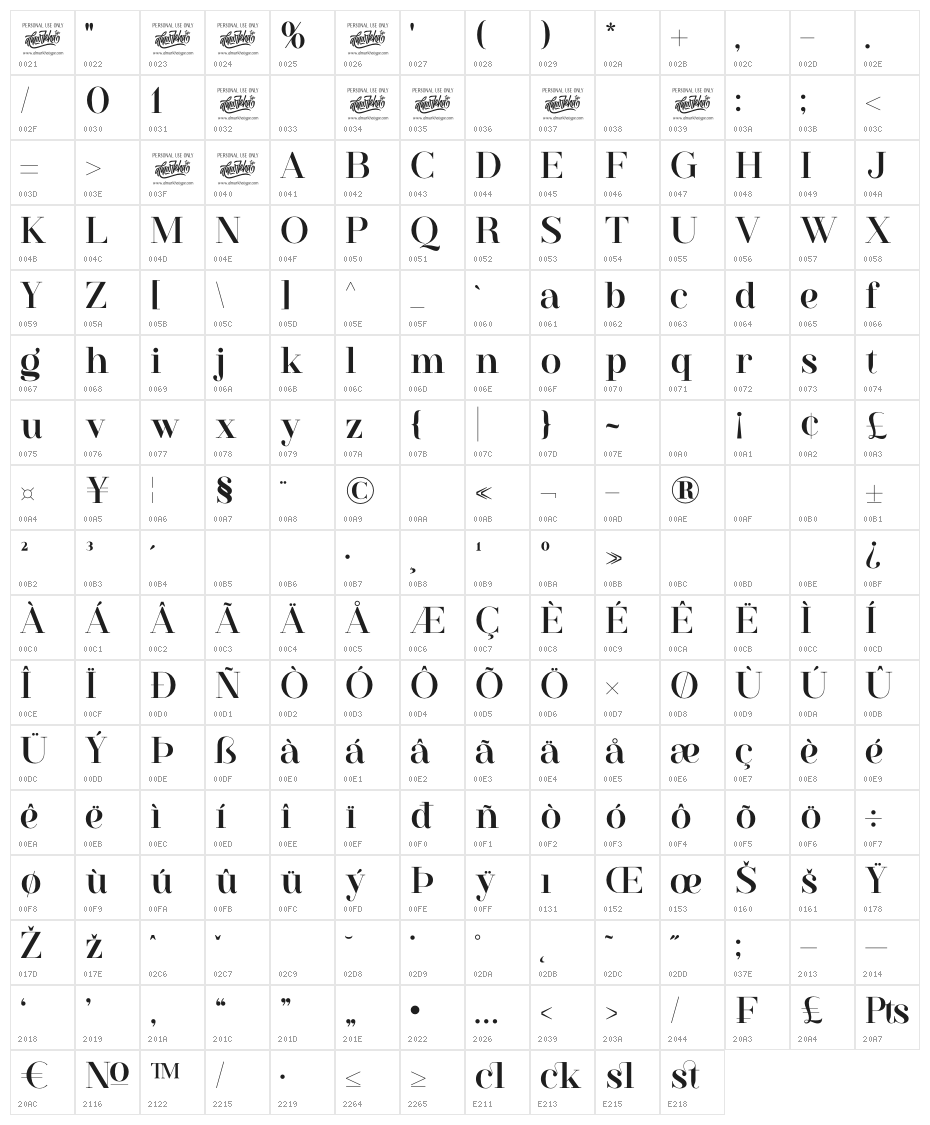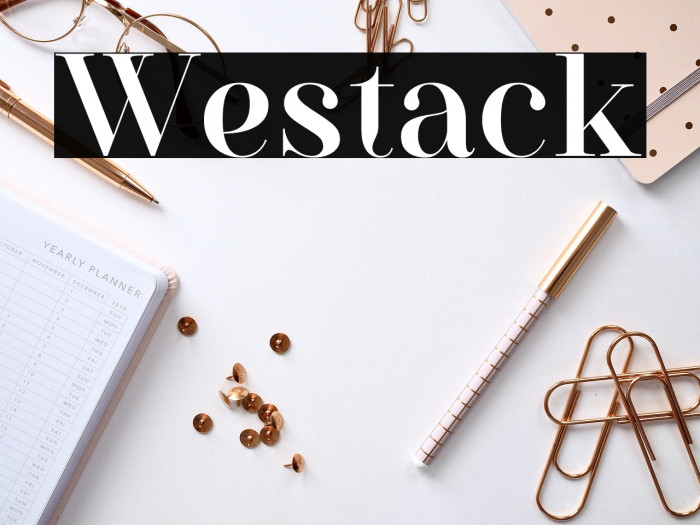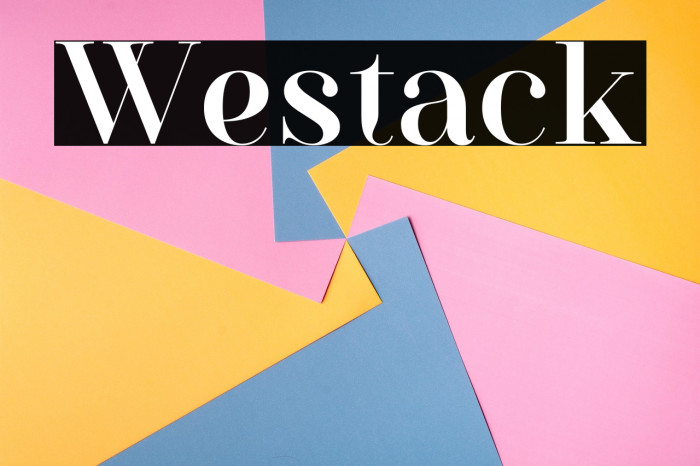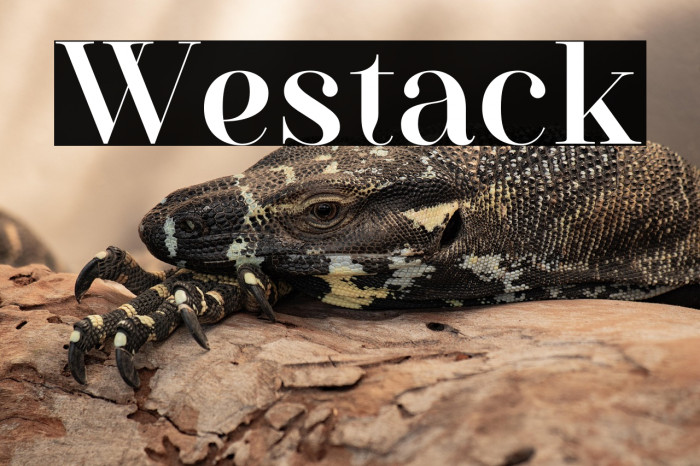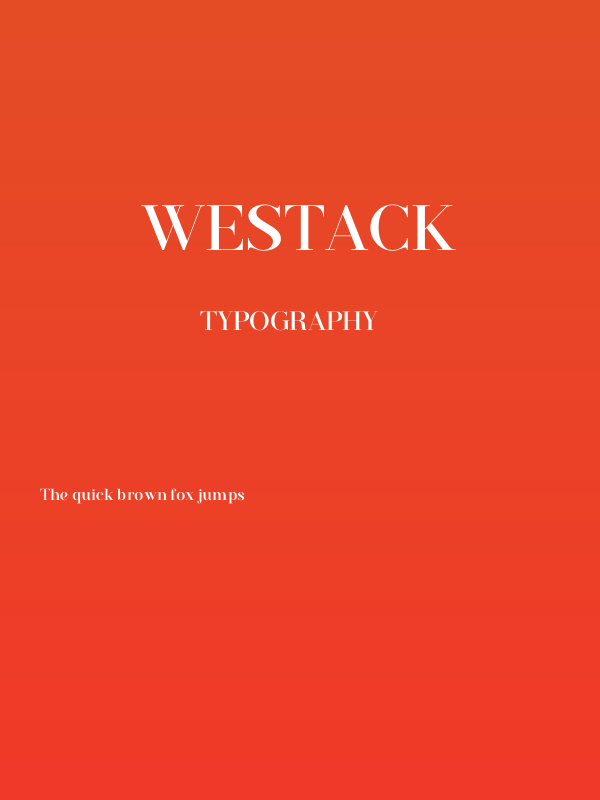
Westack Font
Westack Description
This font features a sophisticated and elegant design with high contrast between thick and thin strokes, giving it a refined and stylish appearance. The uppercase letters are tall and slender, while the lowercase letters maintain a consistent and harmonious flow. The numerals are bold and clear, ensuring readability. Special characters are crafted with attention to detail, adding to the font's overall elegance. This typeface is ideal for projects that require a touch of class and sophistication.
Overall StyleClassic
Proposed ProjectsIdeal for luxury branding, editorial design, wedding invitations, and high-end product packaging.